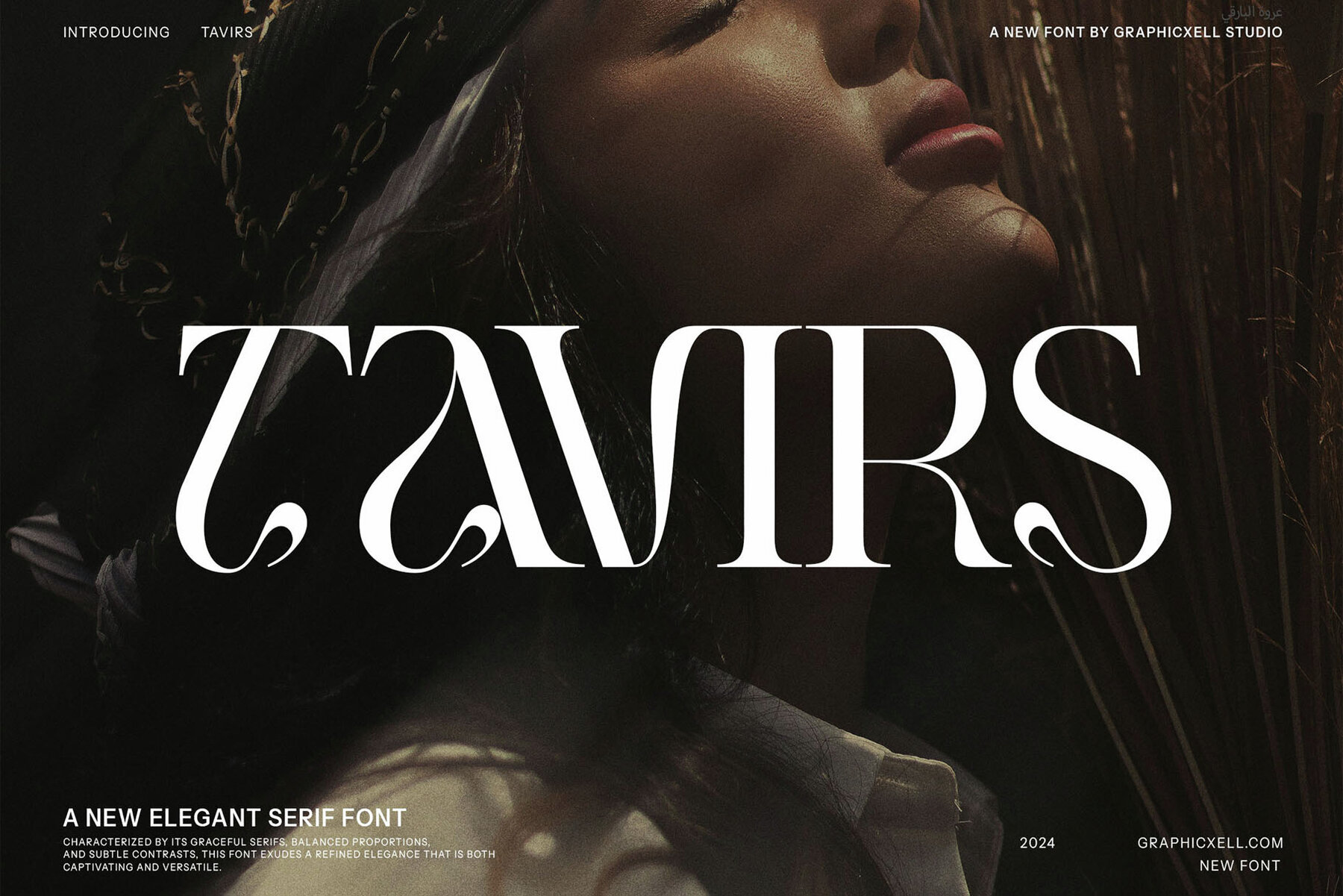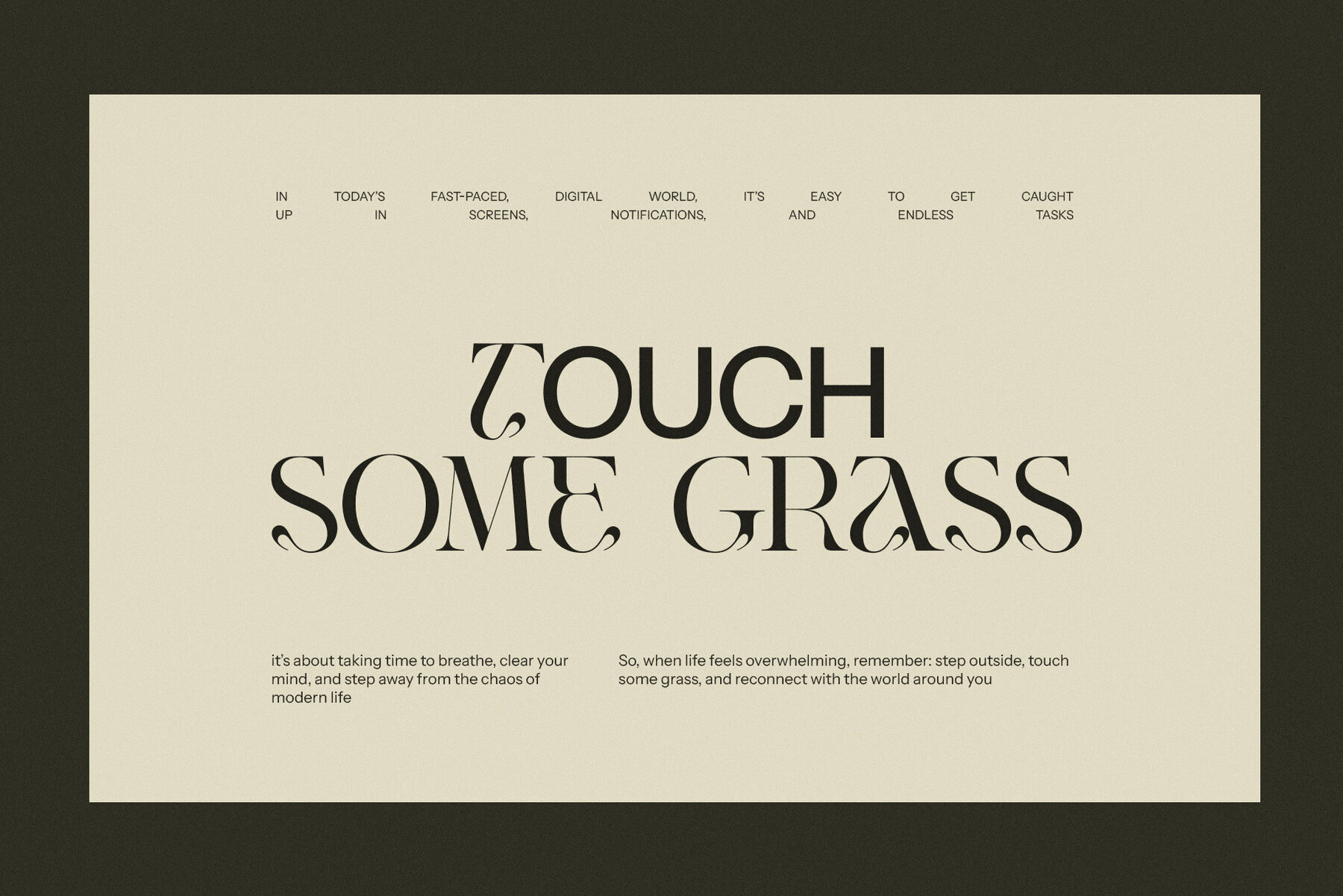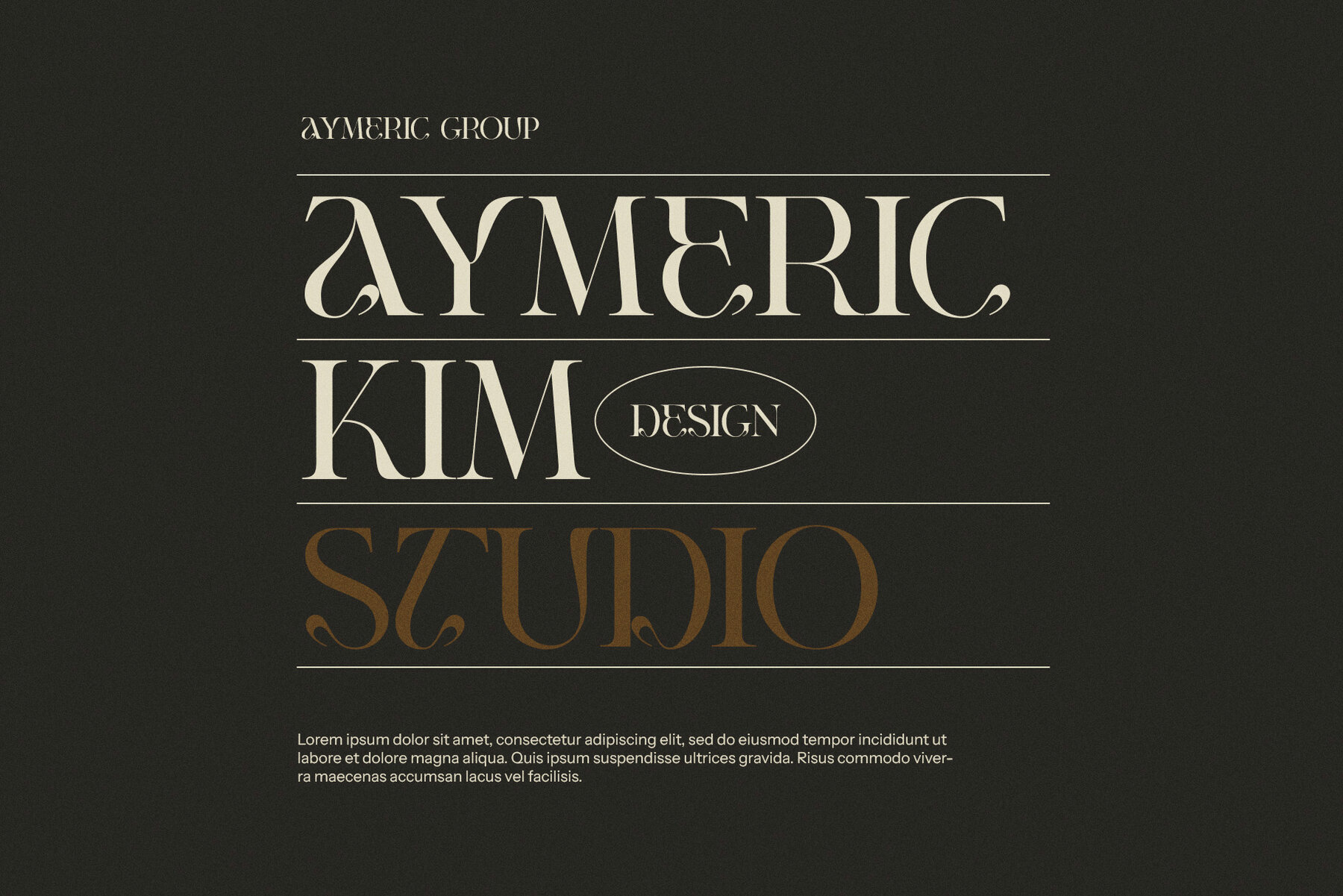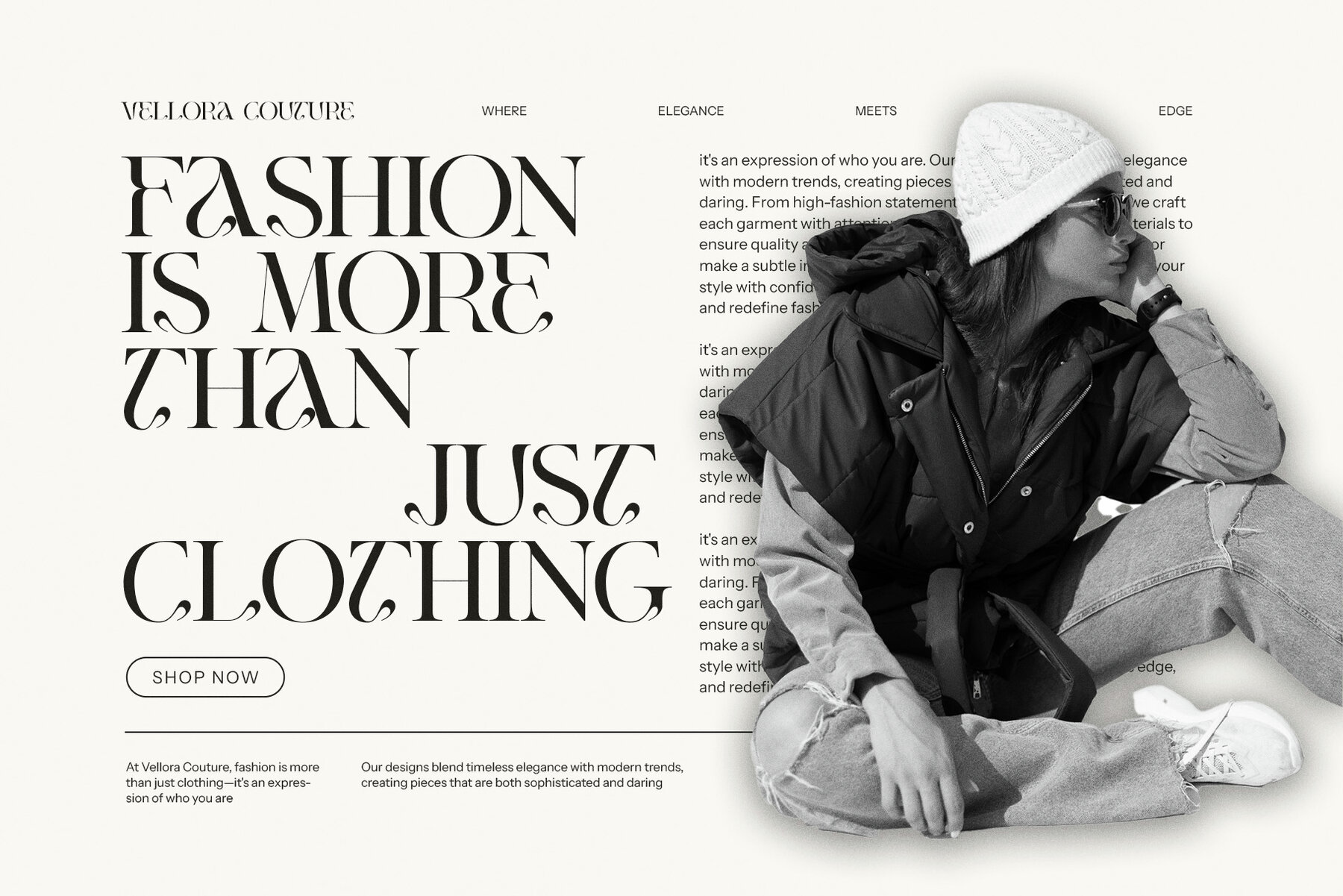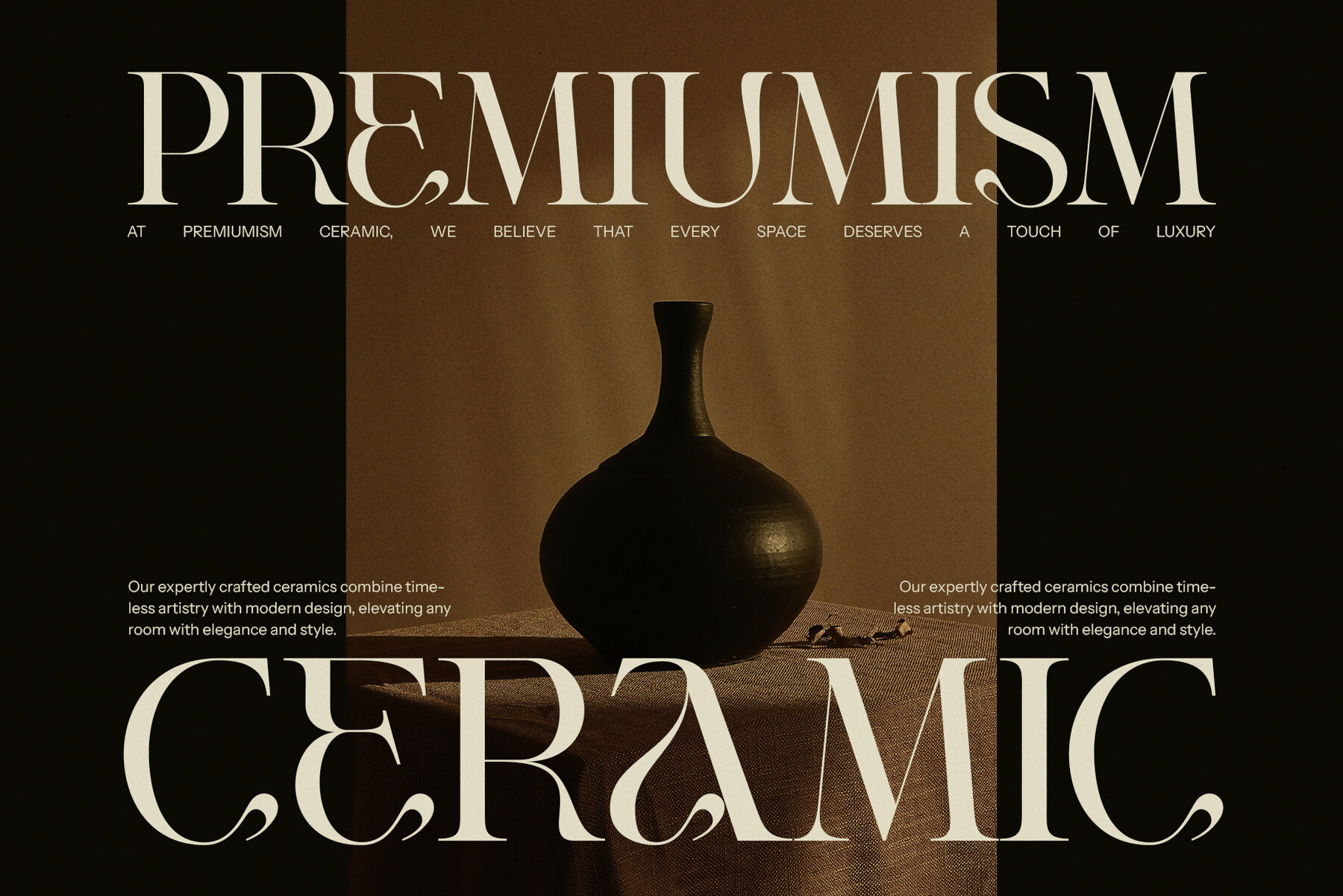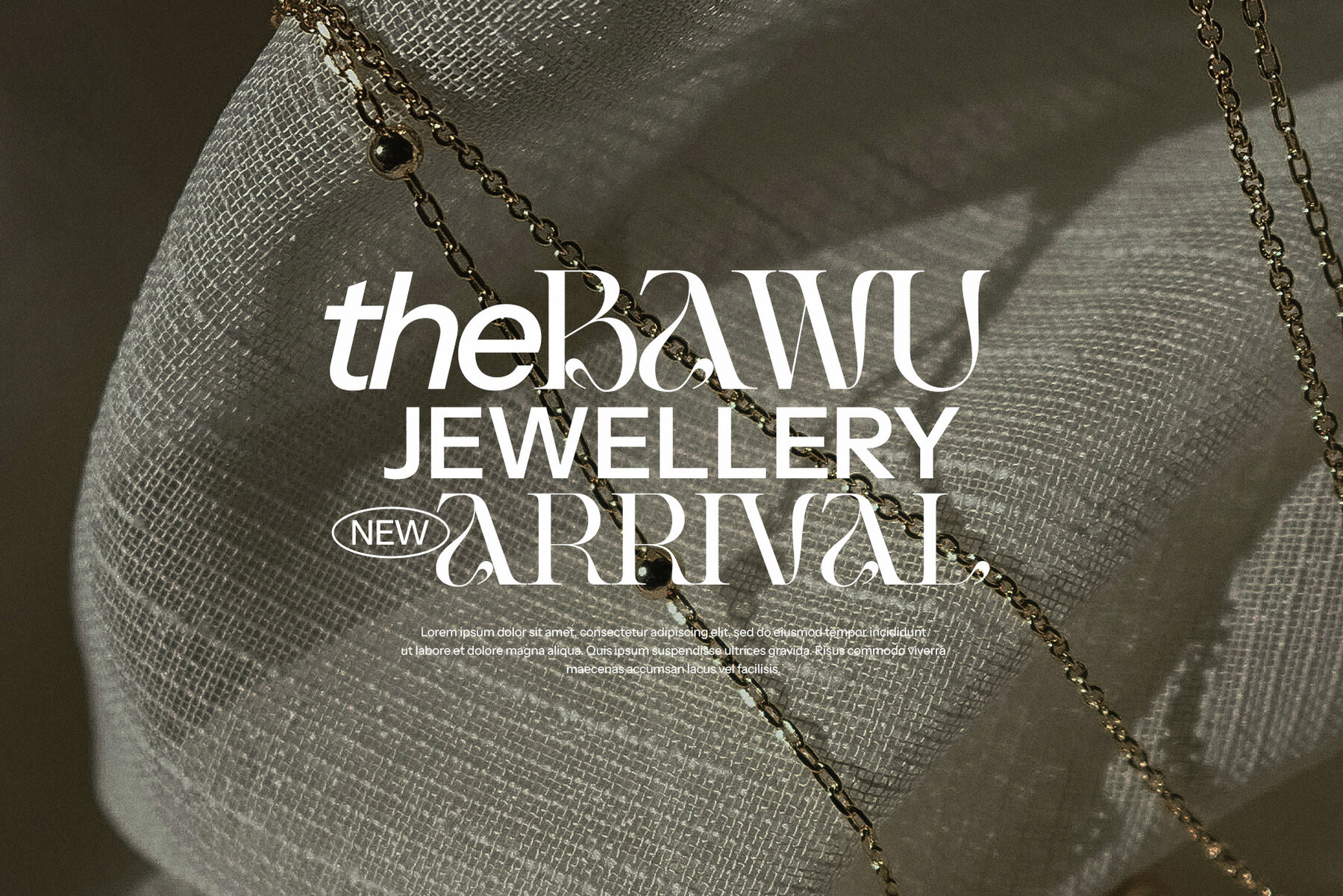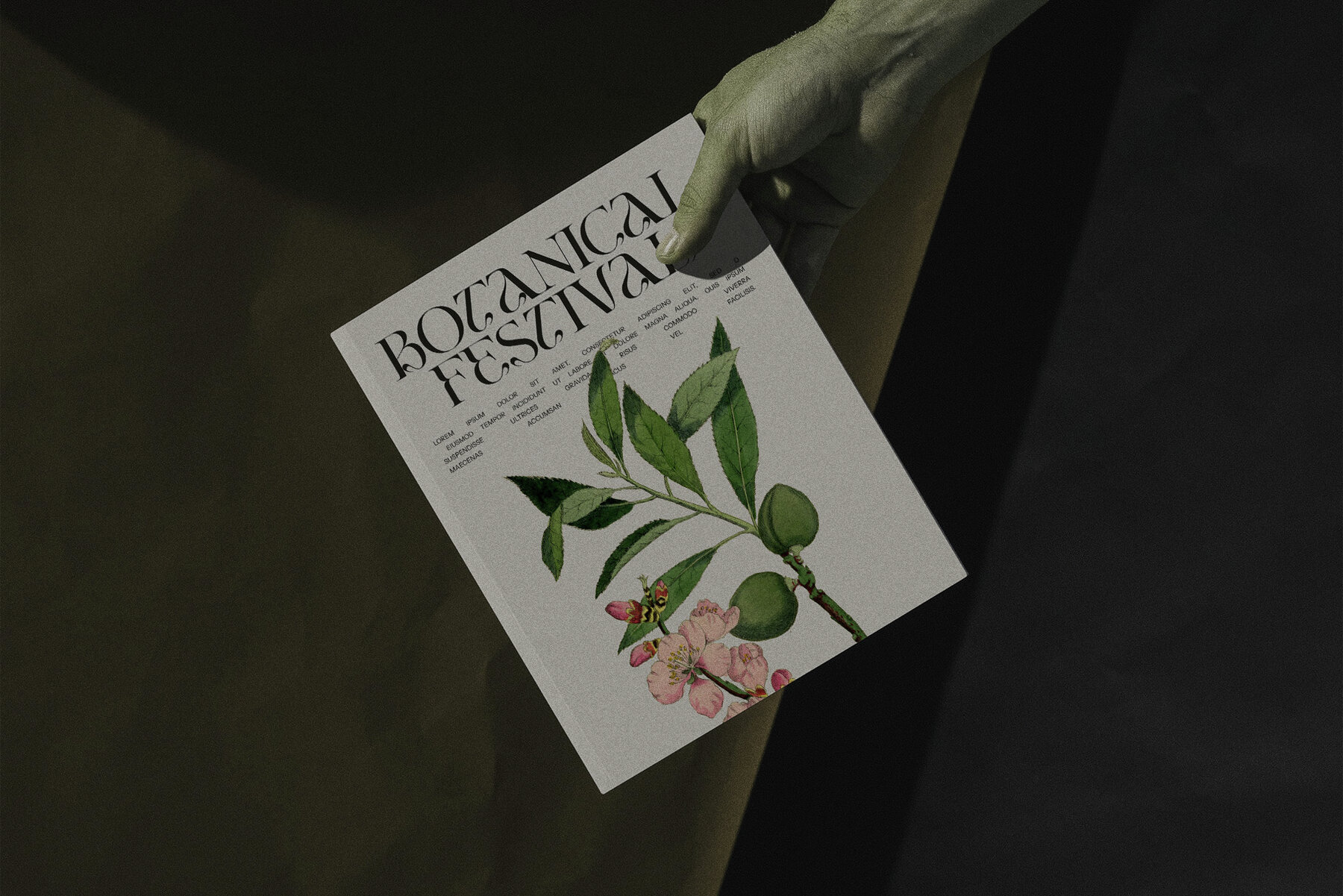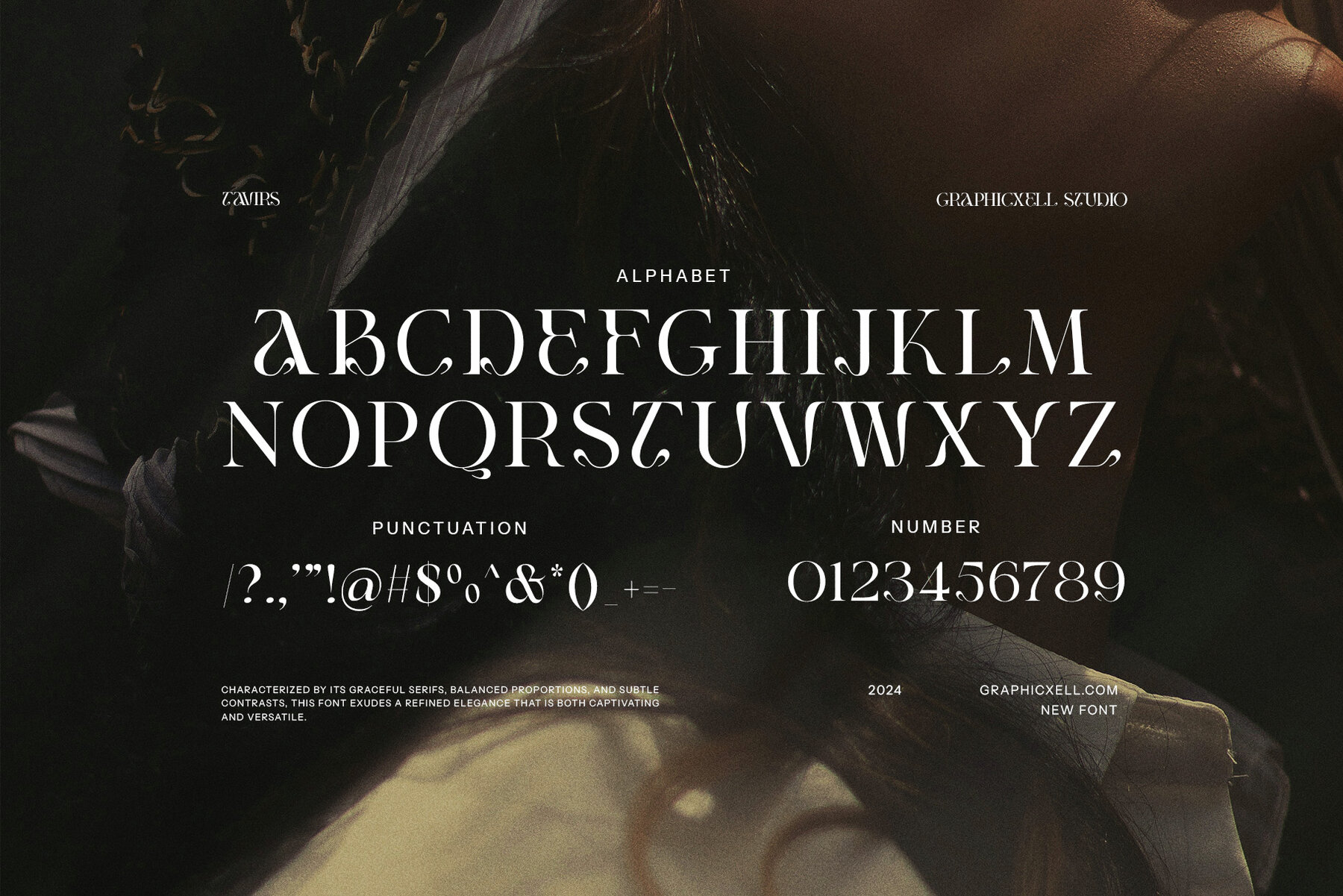
Tavirs Font
Tavirs
Experience the refined sophistication and creative expression of this unique serif font, perfect for designers seeking to make a bold typographic statement. With its blend of classic design and modern flair, the font combines elegant serifs with distinctive letterforms. The meticulous crafting of each character provides structure and stability while adding an artistic touch. Its seamless character flow offers a harmonious visual experience, balancing boldness with delicacy for both impactful headlines and subtle body text.
Ideal for diverse design projects, this font's versatility shines through. Its unique elegance reinforces strong visual identities in logo design, making it an excellent choice for luxury brands, creative agencies, and artisanal products. In magazines and editorial layouts, its serifs add refinement and captivation, enhancing both cover designs and feature articles. The font's legibility ensures functionality, making it suitable for stylish yet readable publications. On product packaging, its distinct look communicates quality and craftsmanship, appealing to discerning consumers. With its blend of elegance and uniqueness, this serif font fosters an emotional connection with audiences, making it invaluable for creating compelling visual narratives in various creative applications.